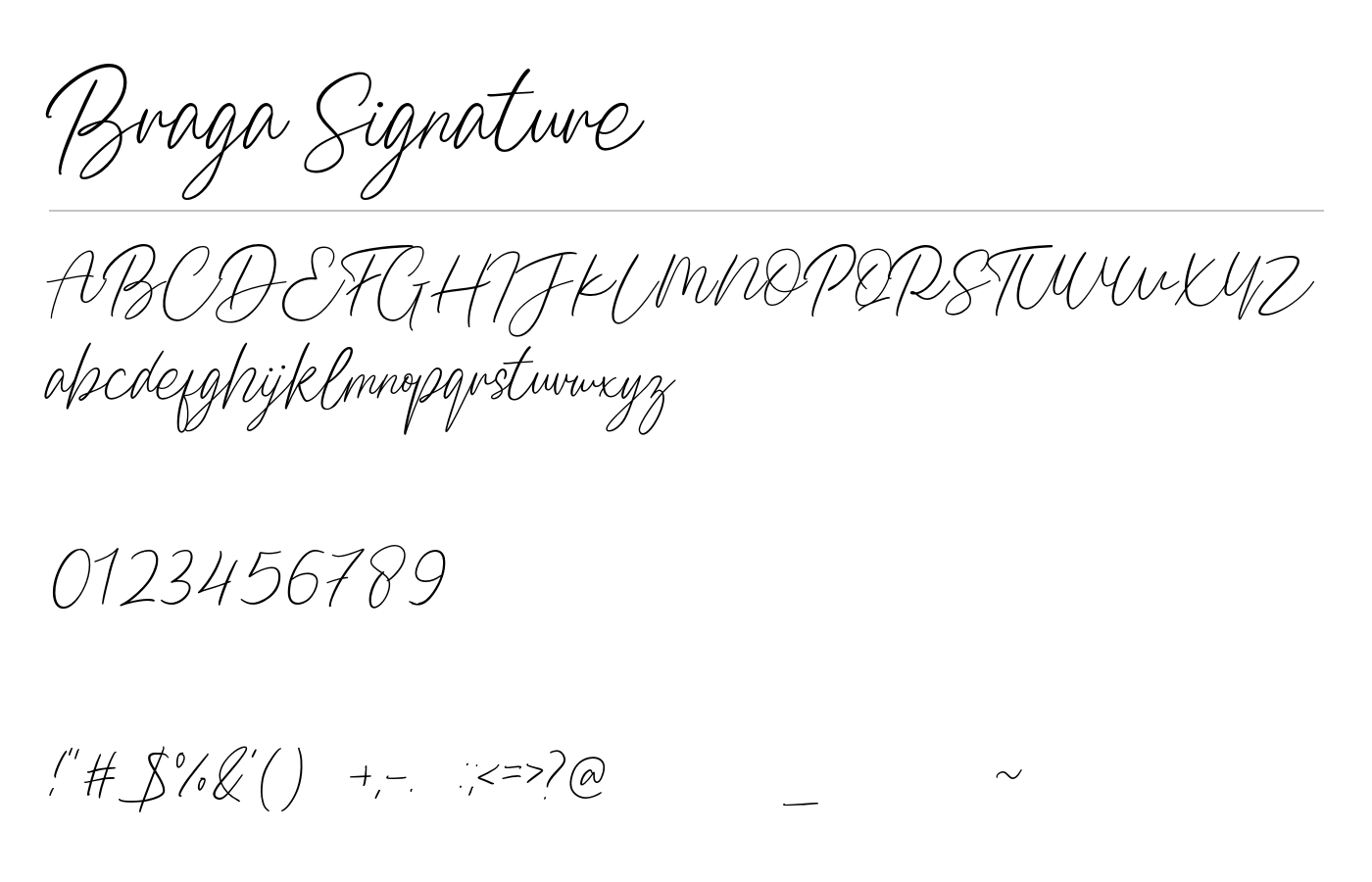
Braga Signature Font is an elegant, thin-script typeface that mimics natural handwriting with a graceful, flowing stroke. Its delicate lines and slightly tall, narrow letterforms give it a refined and personal feel, making it perfect for branding, invitations, and stylish logos. This font works well where a sophisticated yet approachable touch is desired, especially in fashion, beauty, and luxury designs.
Braga Signature Font
About Braga Signature Font